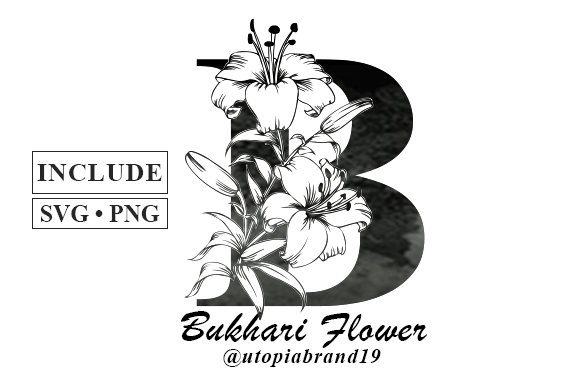
Introduction to Bukhari Flower Monogram Font
Bukhari Flower Monogram is an elegant decorative font, featuring lovely ornaments.
Fall in love with its authentic feel and use it to create gorgeous wedding invitations, beautiful stationary art, eye-catching social media posts, and cute greeting cards .